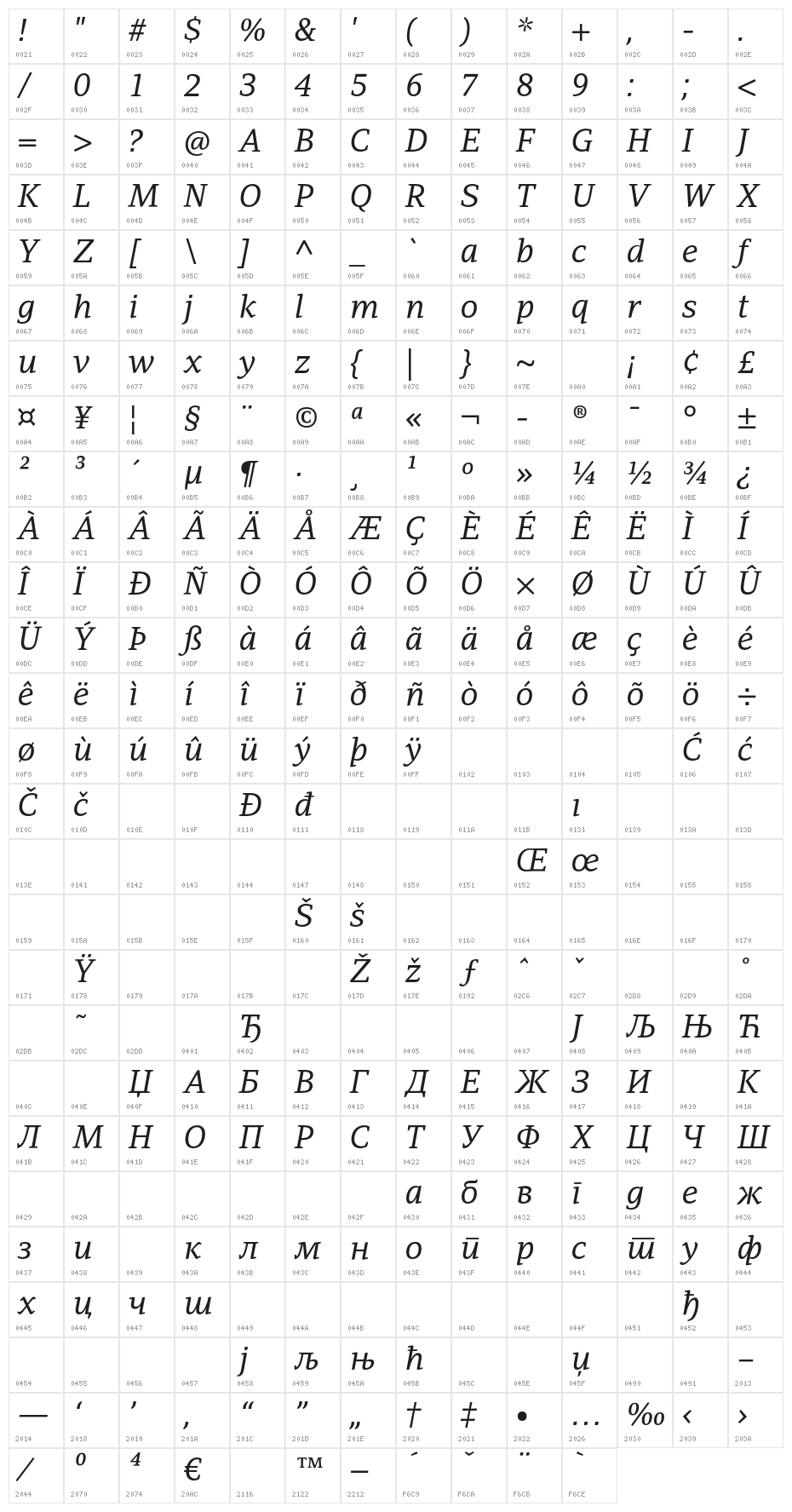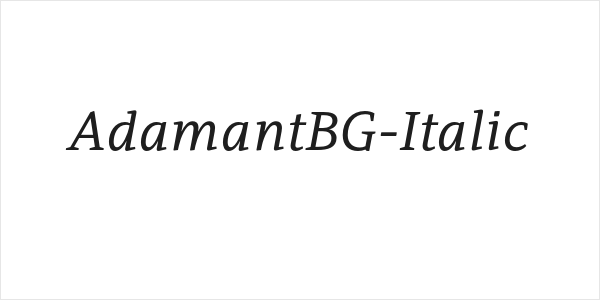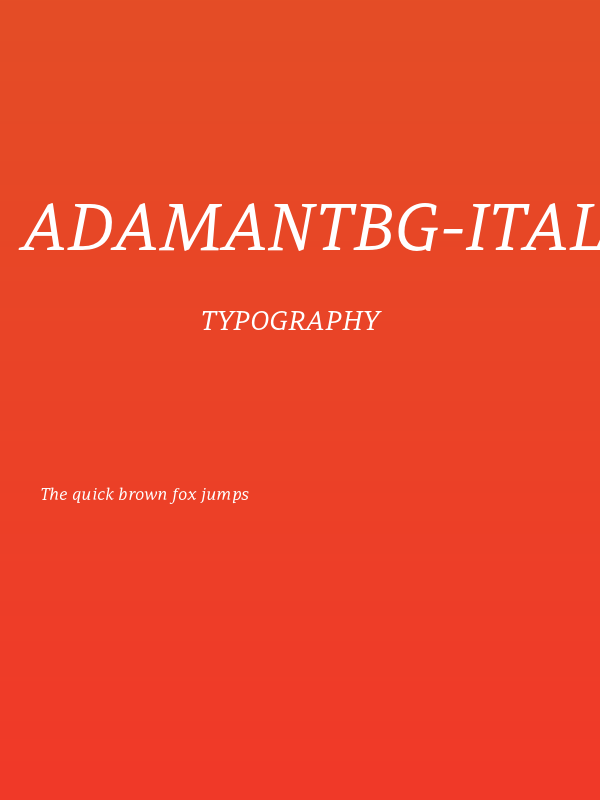
AdamantBG-Italic Font
AdamantBG-Italic Description
This font features a classic serif style with a distinct italic slant, giving it an elegant and sophisticated appearance. The characters are well-defined, with smooth curves and sharp serifs that enhance readability. The uppercase letters are slightly taller than the lowercase, providing a balanced and harmonious look. The numerals are consistent with the overall style, maintaining clarity and uniformity. Special characters are designed with the same attention to detail, ensuring they blend seamlessly with the rest of the typeface. This font is versatile, suitable for both digital and print media, and can be used to convey a sense of tradition and professionalism.
| Proposed Projects | Ideal for book covers, formal invitations, branding materials, and editorial design. |